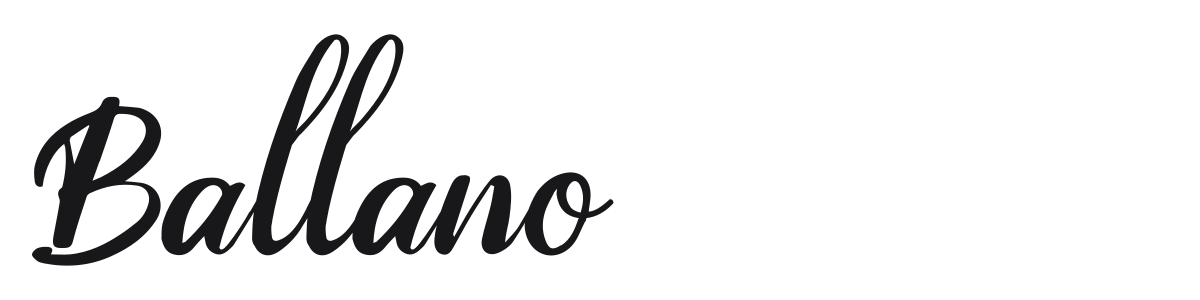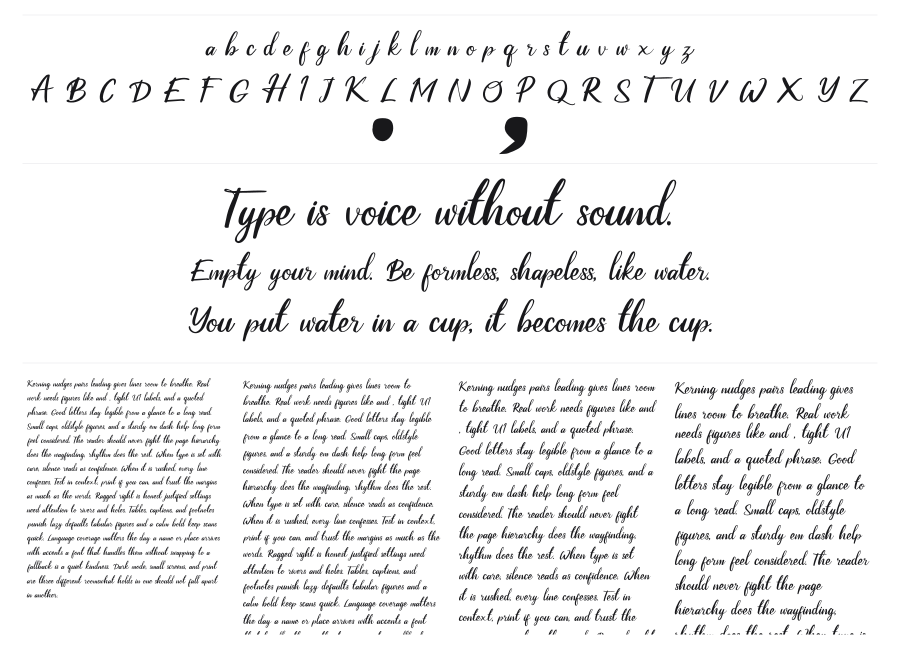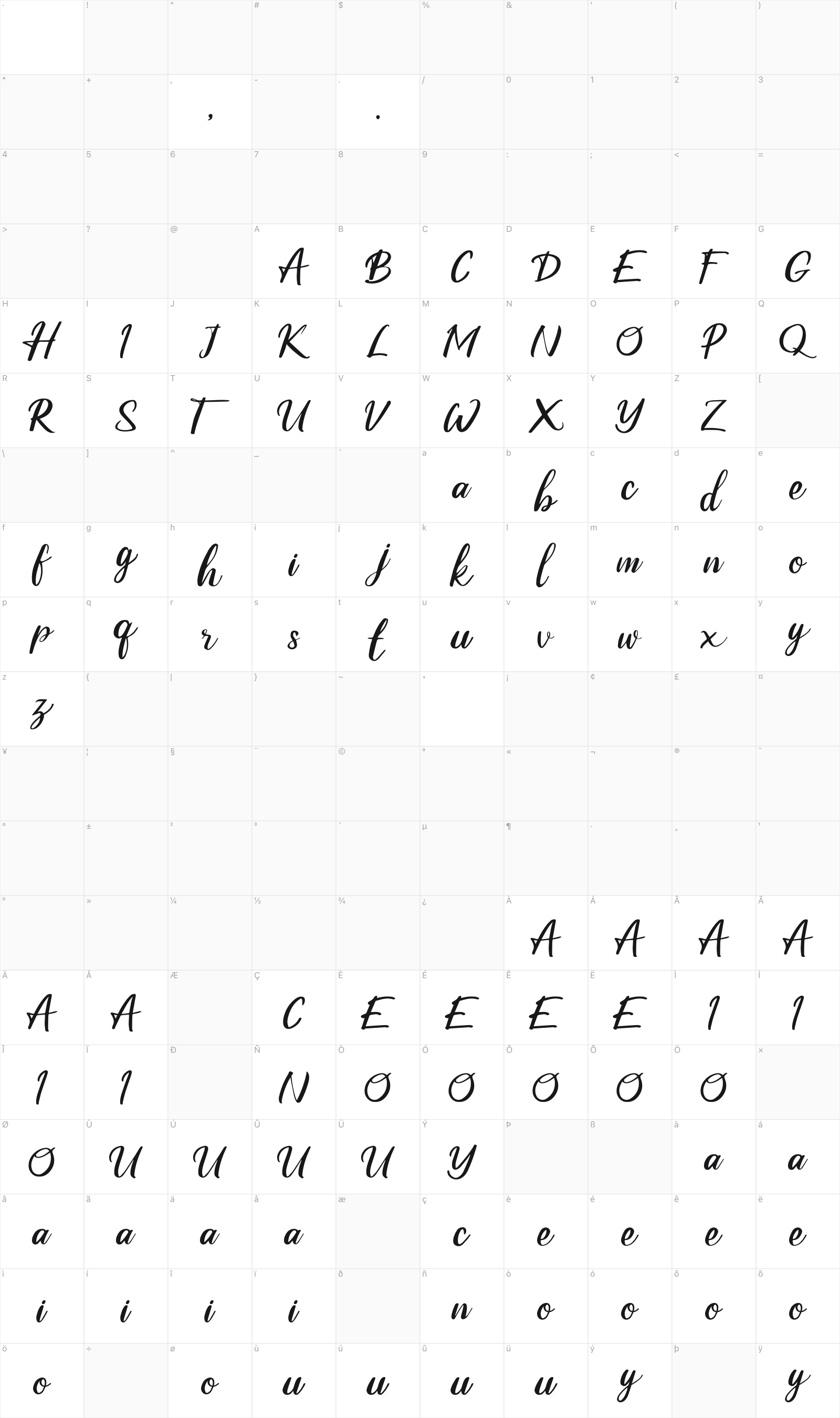
Ballano
Ballano is a bold casual handwritten script with rich stroke contrast and sweeping, looping connections between letters. The heavy downstrokes and delicate hairline upstrokes give it a modern calligraphic quality that feels both polished and personal. It suits wedding stationery, branding, and any project that needs warmth with a confident hand.